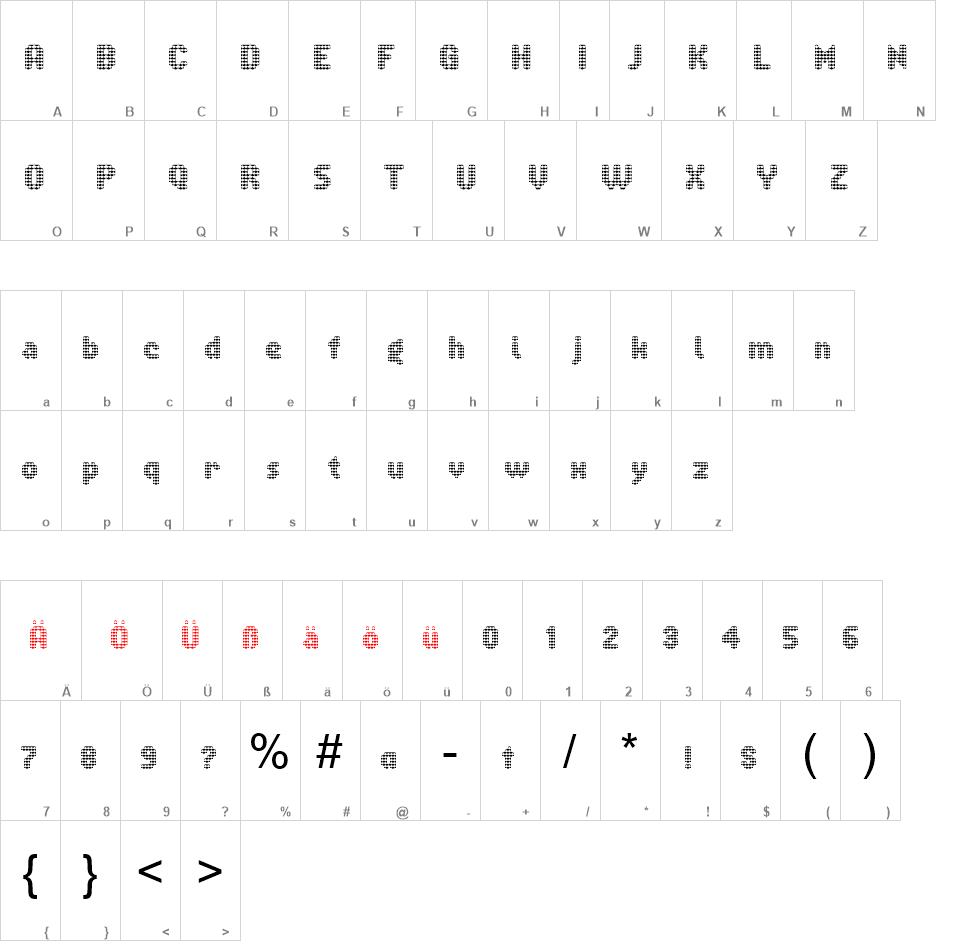
Fish Scales
Fish Scales font
Fish Scales
Best in large scale. Alternates: @ single storey a; \ long f; & single storey g; | straight i; ] straight j; I straight l; + straight t; $ alternate S